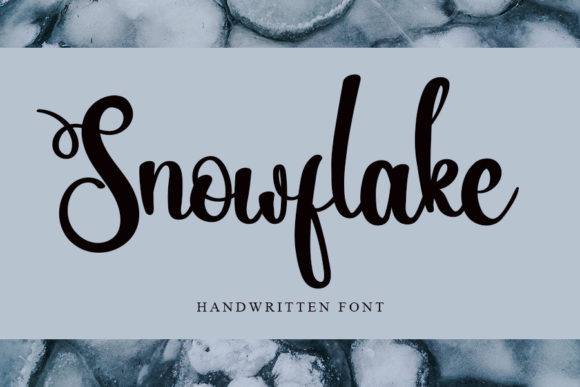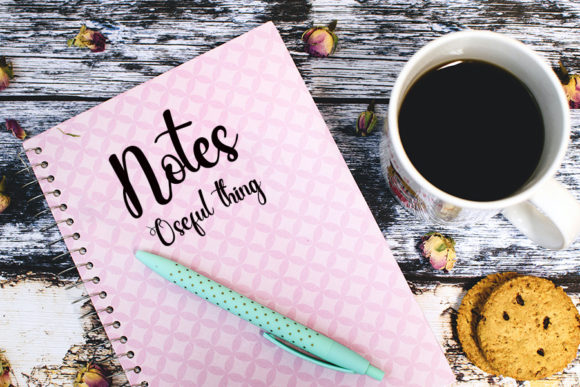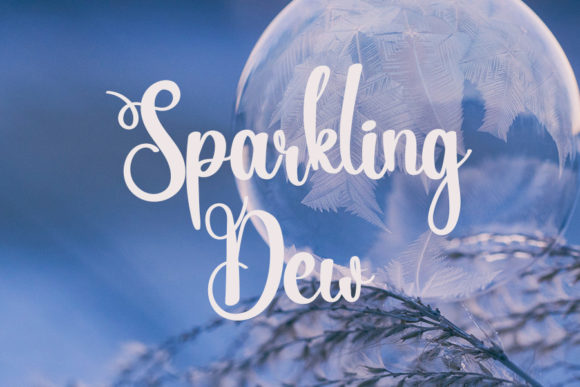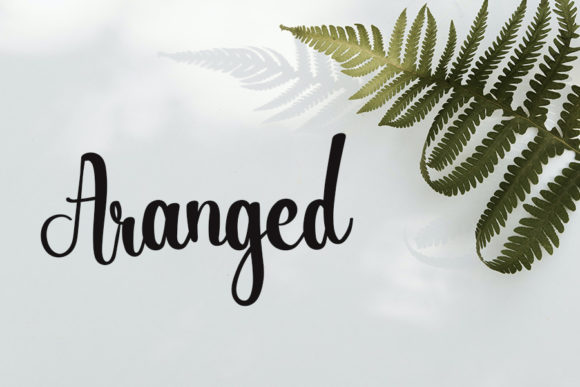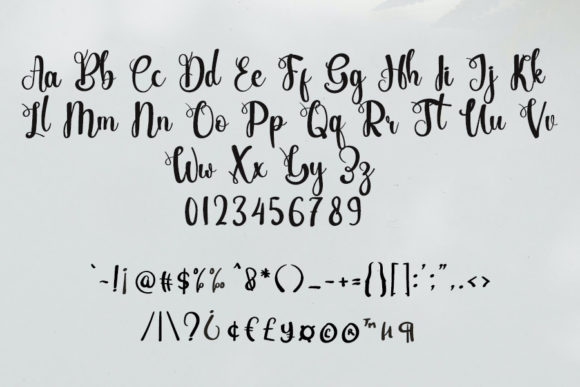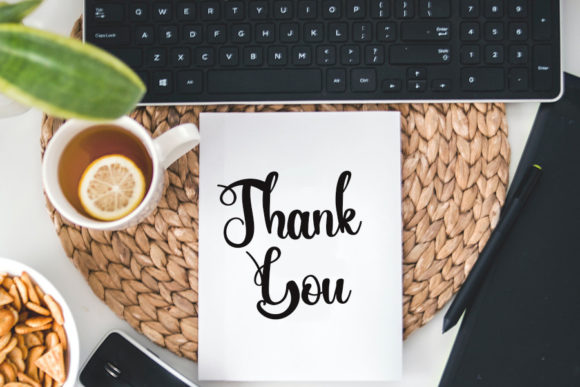
Snowflake Font
About Snowflake Font
Snowflake is a beautiful and versatile handwritten font with a unique feel and a stunning impact. It will add a lovely spark to any design or creative project you have coming up.